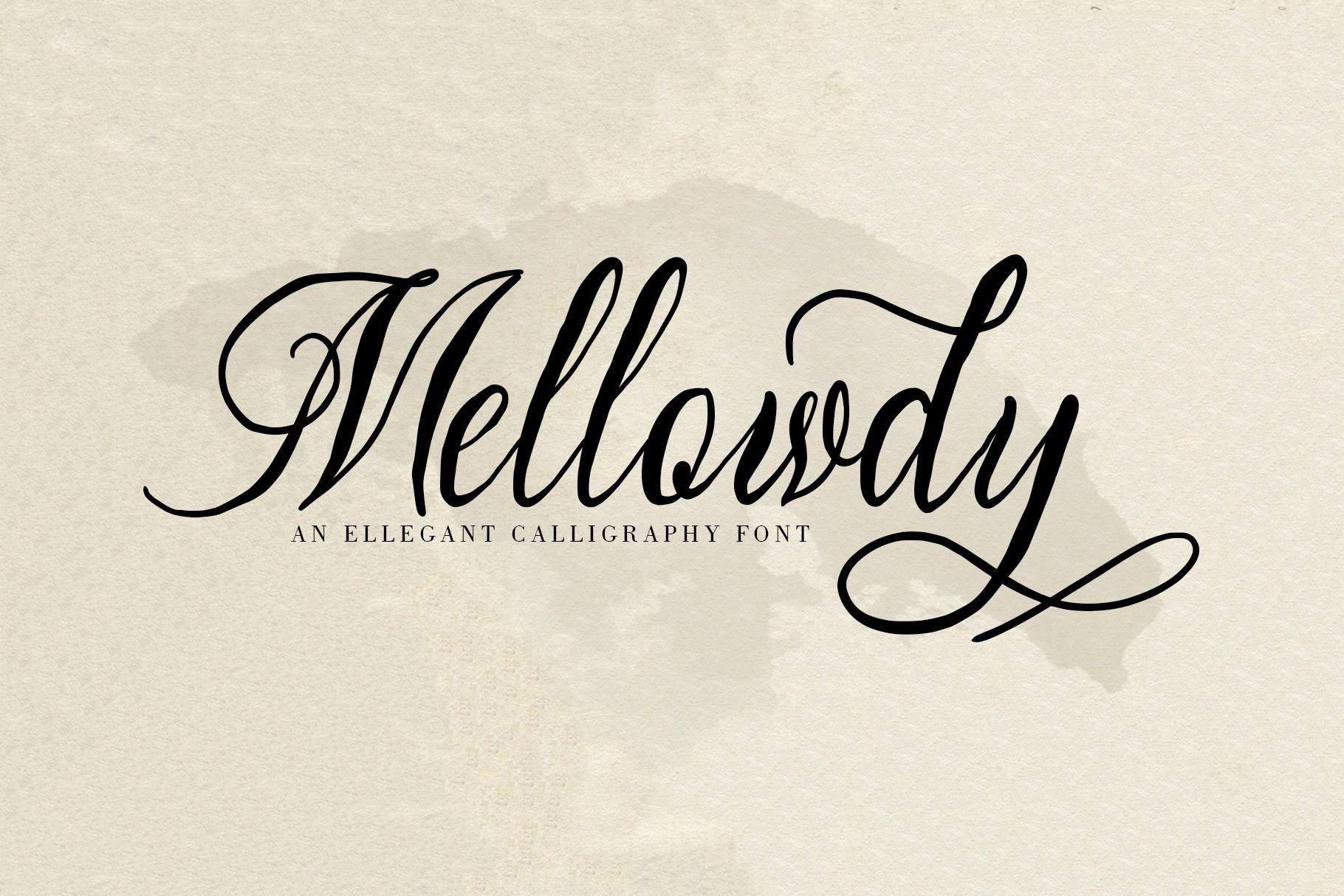
Mellowdy | A Calligraphy Script Font
Introducing the elegant new Mellowdy Calligraphy Font! For those of you who are needing a touch of elegance and modernity for your designs, this font was created for you!
Mellowdy is suitable for all your design project needs such as: logo design, branding, covers, posters, magazines, wedding invitations, greeting cards, quotes and more.
Mellowdy was built with OpenType features and includes beginning and ending swashes, alternate swash characters for most lowercase letters, numbers, punctuation, alternates, ligatures and it also supports other languages :)